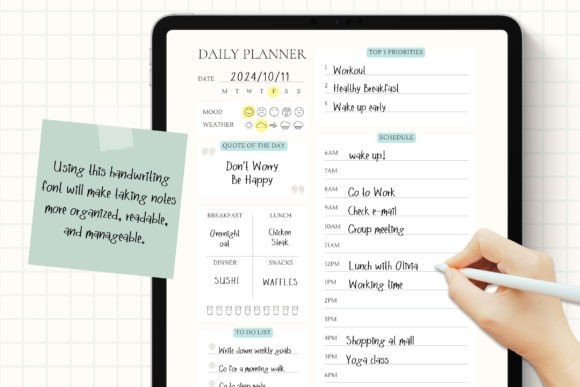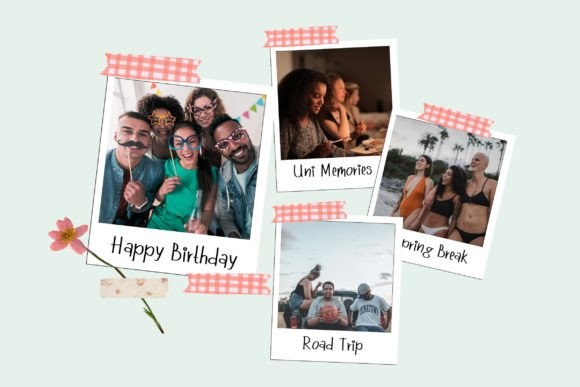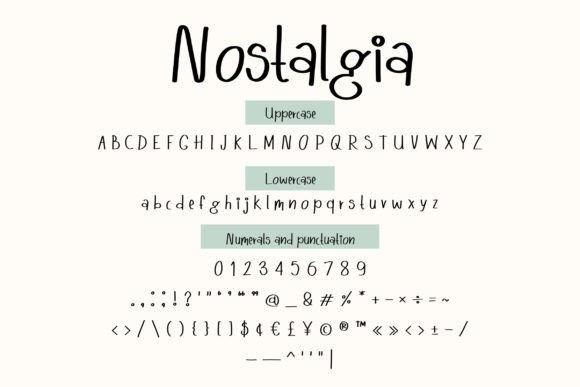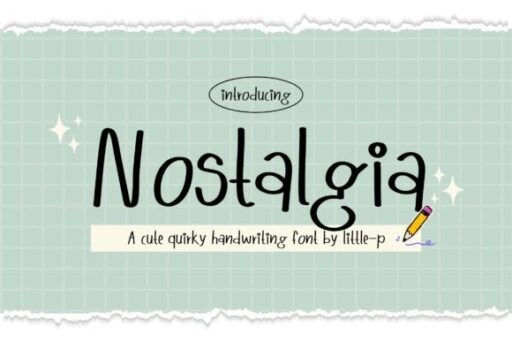
Nostalgia Font
Nostalgia brings the charm of handwritten diaries to your designs. Its cute and friendly style makes writing feel personal and warm. Perfect for journaling, note-taking, and more.
Features:
Soft, easy-to-read letters
Perfect for digital planning & Goodnotes
Ideal for quotes, greeting cards & branding
Works great on T-shirts & creative projects
Nostalgia Font is a Script And Handwritten font that brings a professional and versatile look to your projects. Nostalgia brings the charm of handwritten diaries to your designs.